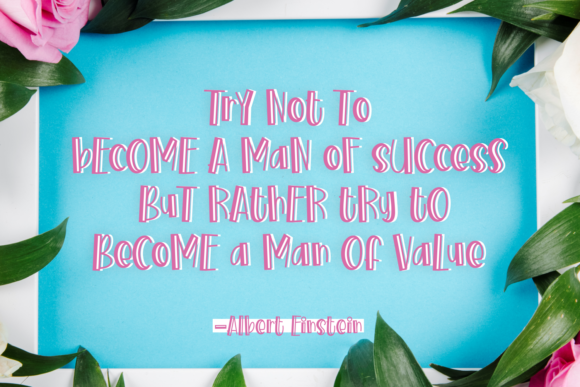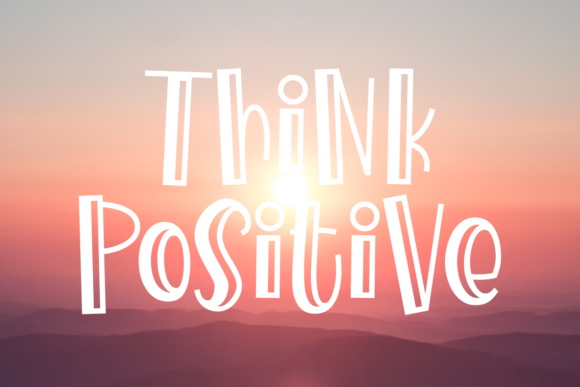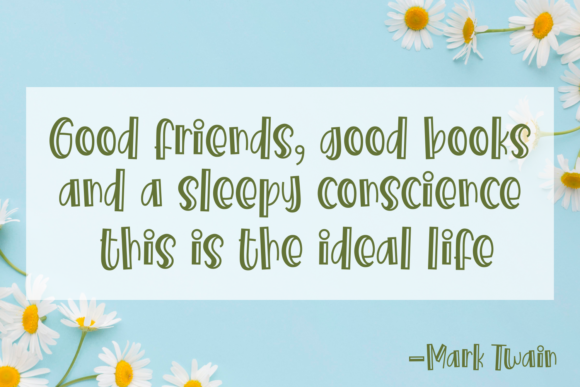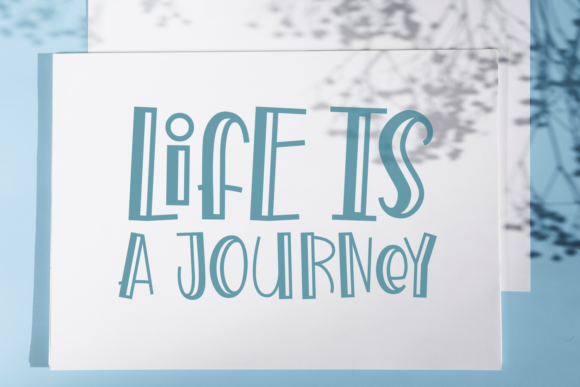
Introduction to Katlina Font
Have you ever stared at a blank canvas, eager to bring your creative vision to life, but struggling to find the perfect design element to tie everything together? That’s where the magic of fonts comes in. As designers, we know that the right font can elevate a project from good to great, making all the difference in its overall impact. And that’s exactly what the Katlina Font does – it’s a game-changer for any high-quality creative project that needs a touch of fun and uniqueness.
Whether you’re a seasoned designer or just starting out, the Katlina Font is an incredible design resource that’s sure to become a favorite. Its transparent background and free download option make it an accessible addition to any project, while its playful and authentic vibe ensures that your work stands out from the crowd.
Key Features of Katlina Font
- High-quality design resource suitable for creative projects, offering a unique and elegant touch.
- Includes a comprehensive set of characters, including uppercase and lowercase letters, numbers, and special characters.
- Unique characteristics include a delicate and intricate design, perfect for adding a touch of sophistication to any creative project.
Honest Review: Katlina Font
I recently stumbled upon the Katlina Font, and I must say it’s a fantastic addition to any designer’s arsenal. The high-quality design is perfect for a creative project that requires a unique touch.
Here are some things that work well with the Katlina Font: ✨
- Unique and creative design: The font’s quirky style makes it stand out from the crowd.
- Perfect for digital art: The Katlina Font is ideal for digital art projects, graphics, and other design resources.
- Limited font weights: The Katlina Font only comes in a few font weights, which may limit its use in certain situations.
- No italic or bold variations: While the font’s design is unique, the lack of italic and bold variations may make it less versatile.
Overall, I’m impressed with the Katlina Font. It’s a great design resource that can add a touch of personality to any creative project. While it may have some limitations, its unique design and high-quality construction make it a valuable addition to any designer’s toolkit.
Tips for Getting the Most Out of Katlina Font
To get the most out of the Katlina Font, experiment with different font sizes, colors, and styles to create a unique and creative look. You can also use the font in combination with other design elements to create a visually appealing design.
The Katlina Font is commonly used in creative projects such as blog posts, social media graphics, and marketing materials. Its high quality and creative feel make it an excellent design resource for any project that requires a unique and eye-catching look.